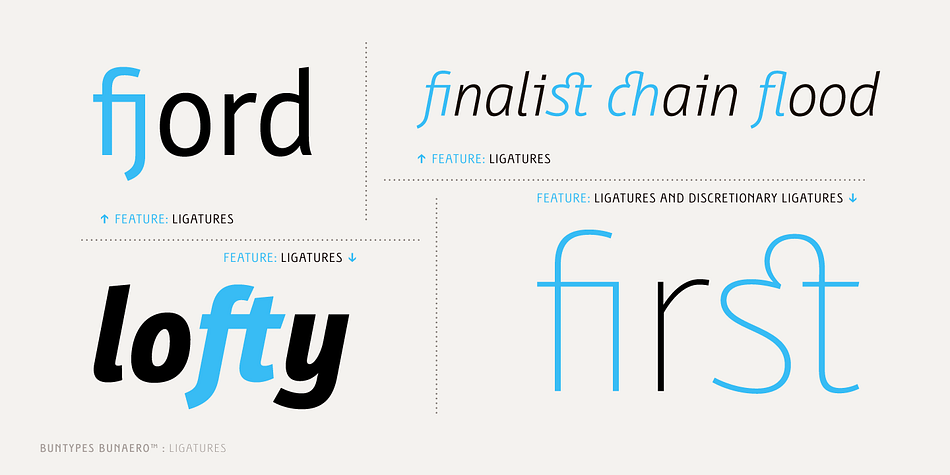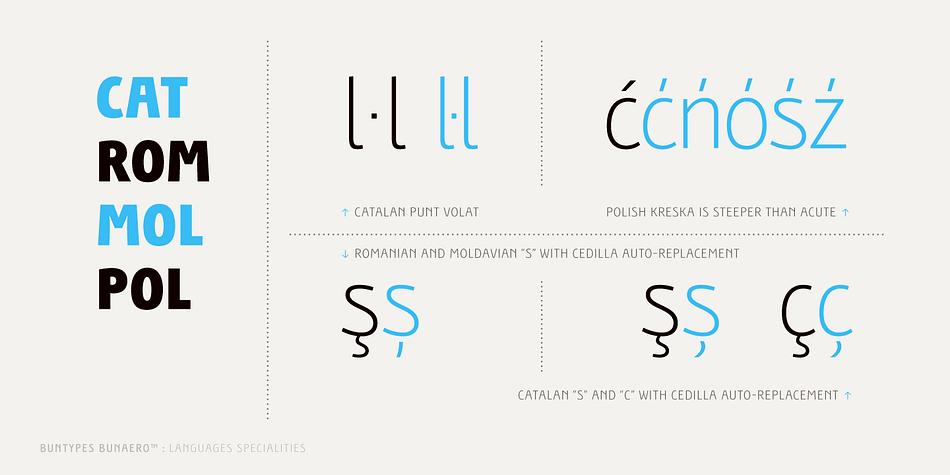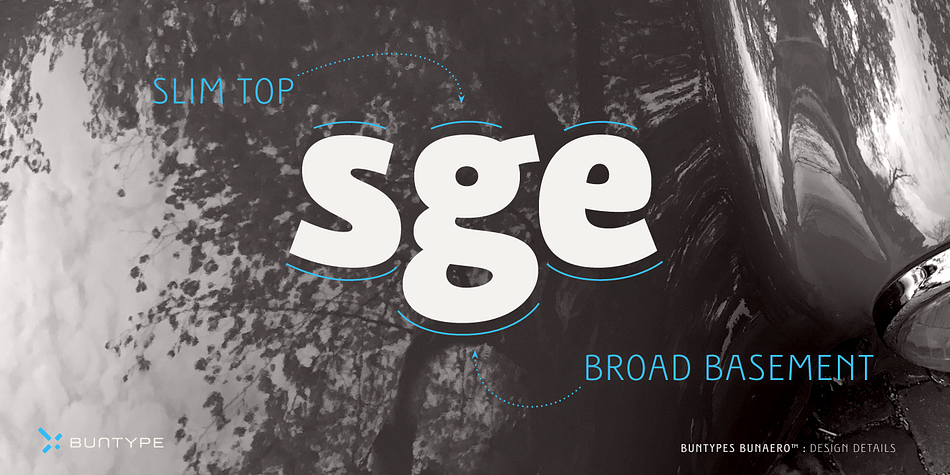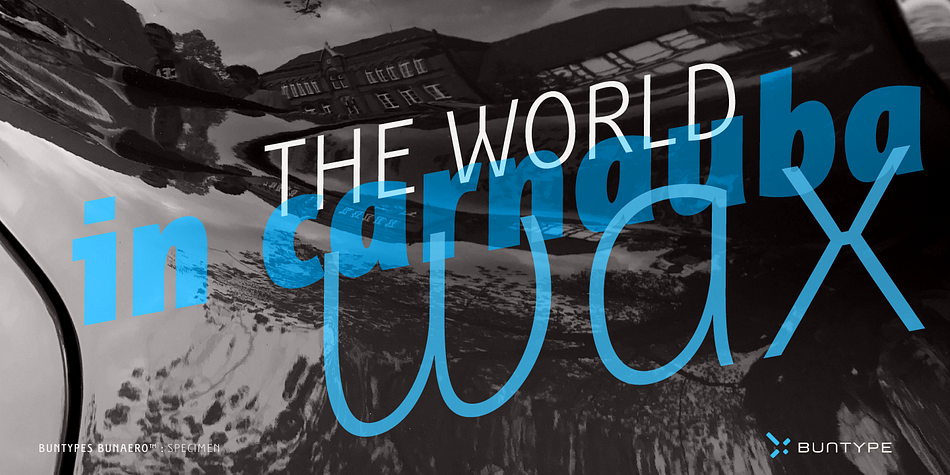
Bunaero Pro
Bunaero Pro is a sans serif font family. This typeface has thirty-six styles and was published by Buntype.
Buntypes Bunaero™ combines classical and contemporary characteristics to a unique and distinctive font family with extravagant but also harmonious appearance. The characters are clear, open and sometimes bellied. Especially the caps have a very high waistline.
Based on this, four main states with different moods have been composed: The original Bunaero™, the more conservative “Classic”, the elegant and curvy “Up” and the matching ”Italic”. All states offer weights from a considerably thin „Hair“ to a real fat „Heavy“, so the family consists of 34 Styles, all with rather narrow width and very good legibility.
The font was manually hinted and contains extensive handcrafted kerning tables to ensure flawless appearance in all media.
It supports at least 99 languages incl. Vietnamese and provides ligatures, alternative glyphs, special localized forms and even more enjoyable OpenType® features.
This Pro version of Bunaero also includes a lot of features for sophisticated users: Lining figures for headline setting; Intermediate linings and oldstyle figures for text setting; Tabular versions of all figures; Superiors, inferiors, numerators, denominators and automated fractions; Language specialities like a capital Eszett for the german language and extra characters with a polish kreska instead an acute; And many more.
Feature Summary*:
-4 Moods: Normal, Classic, Up and Italic
-9 weights: Hair, Light, Thin, SemiLight, Regular, SemiBold, Bold, ExtraBold and Heavy
-Supports at least 99 Languages incl.
eastern European and Vietnamese languages
-Overall width: Narrow or Space-Saving
-Advanced f- ligature set including fb
-Discretionary s- and c- ligatures
-Alternative Characters: a, e, f, g, i, k, l, t, v, w, y, J, K, Q, R, and more
-6 sets of figures:
-Capital sized figures, oldstyle figures and intermediate figures,
each in proportional and carefully adjusted tabular versions
-Superiors, inferiors, numerators, and denominators
-Circled and negative circled figures
-Capital German Eszett
-Extra characters with Polish Kreska
-Catalan Punt Volat
-Extra characters with alternate minmalistic Cedille
-Arrows
-Automated feature for fractions as well as extended fraction character set
-More than 1000 characters per font